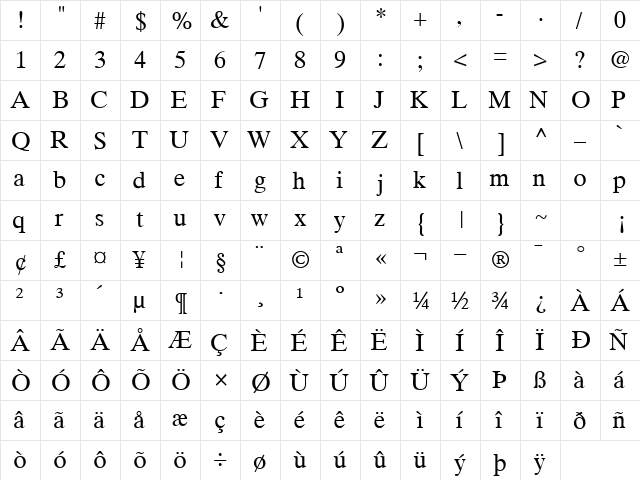
GrecoTenSSK Regular
Design Context for GrecoTenSSK Typeface
GrecoTenSSK takes a measured approach to typography — its balanced proportions and neutral character make it a reliable workhorse for both digital and print work.